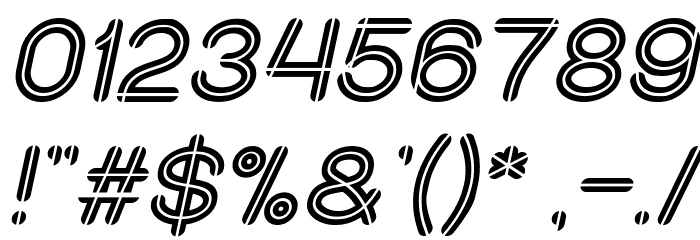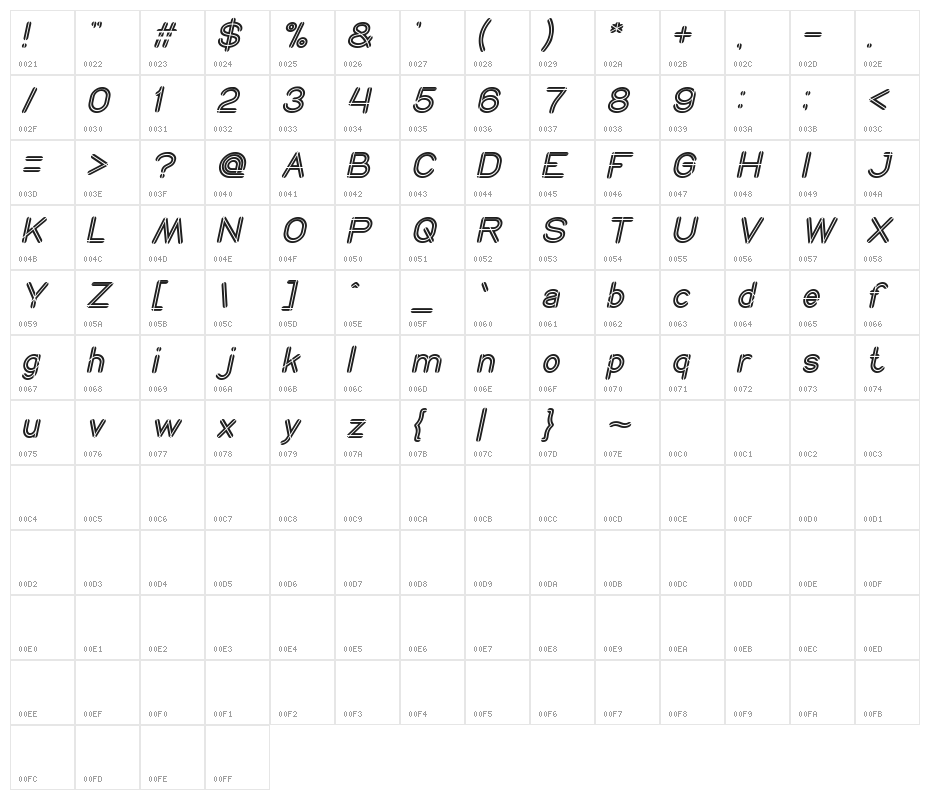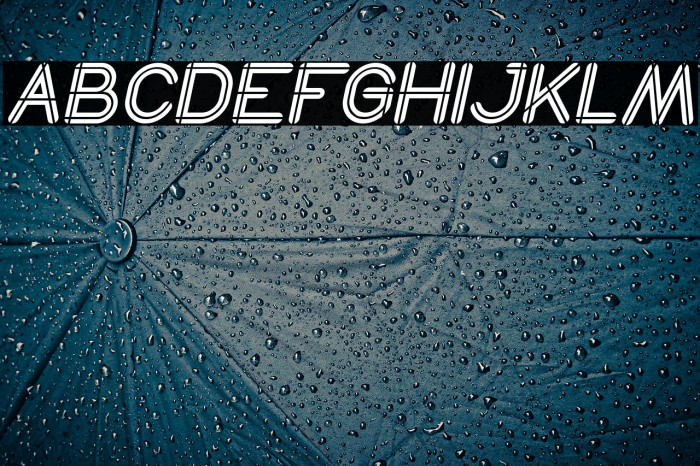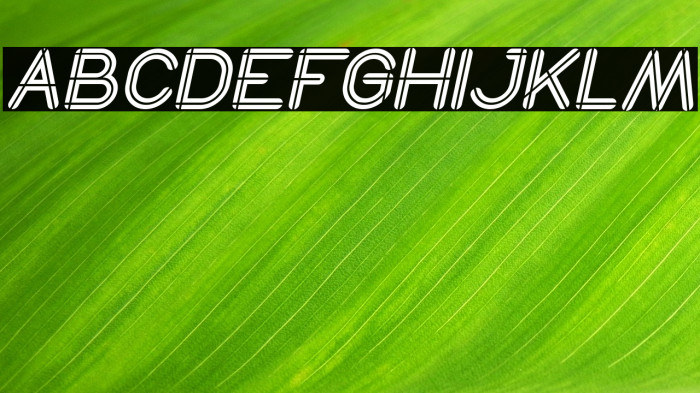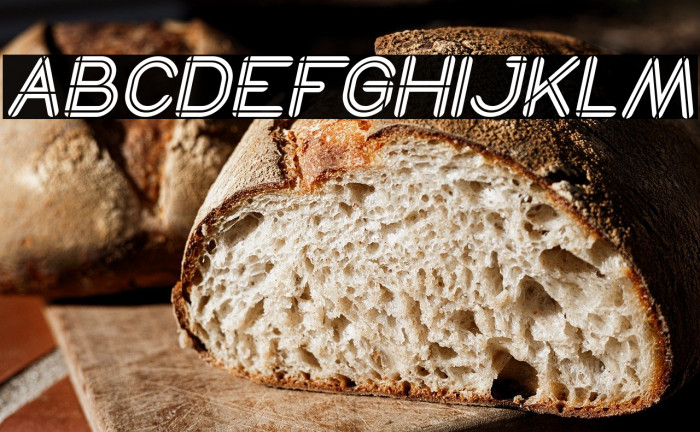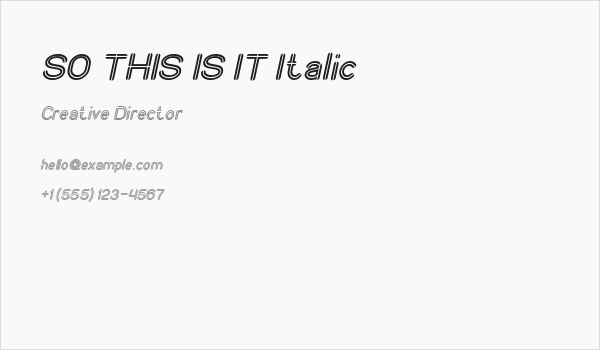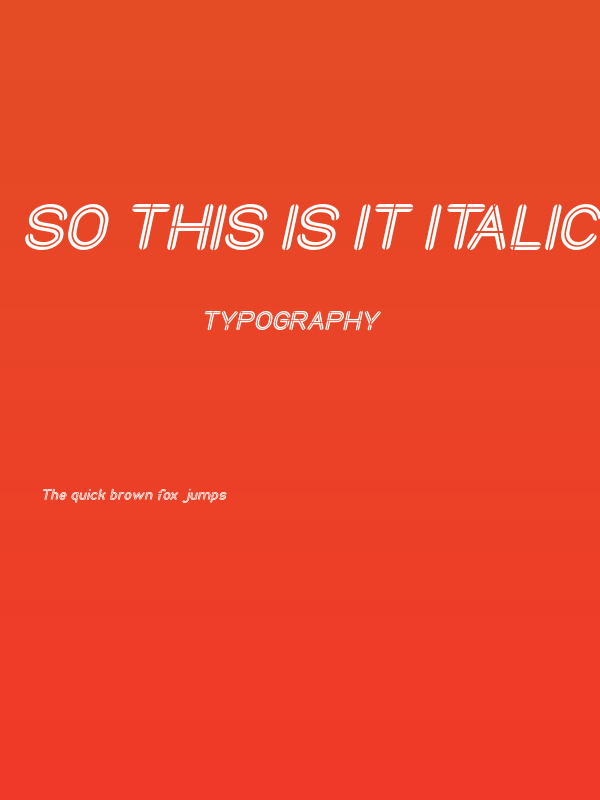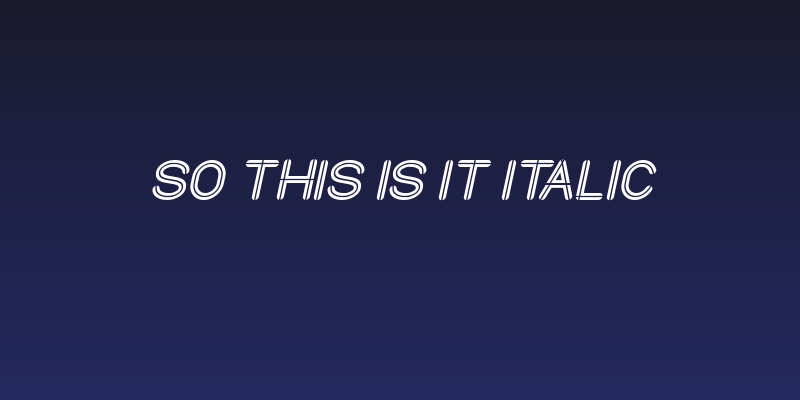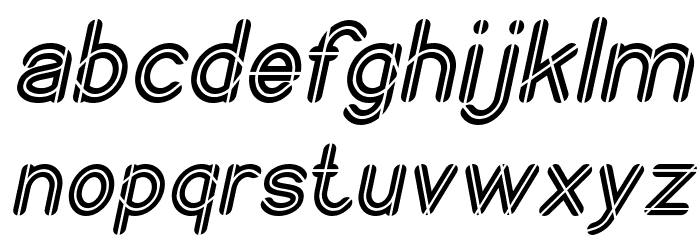
SO THIS IS IT Italic Font
SO THIS IS IT Italic Description
This font features a dynamic and modern italic style with a unique double-line effect that gives it a sense of movement and depth. The characters are slanted, adding to the italicized appearance, and the double-line design creates a shadow-like effect that enhances its visual appeal. The uppercase and lowercase letters maintain a consistent style, with rounded edges and smooth curves that contribute to its contemporary look. The numerals and special characters are designed to match the overall aesthetic, ensuring uniformity across all glyphs. This font's distinctive style makes it stand out, making it suitable for creative and bold design projects.